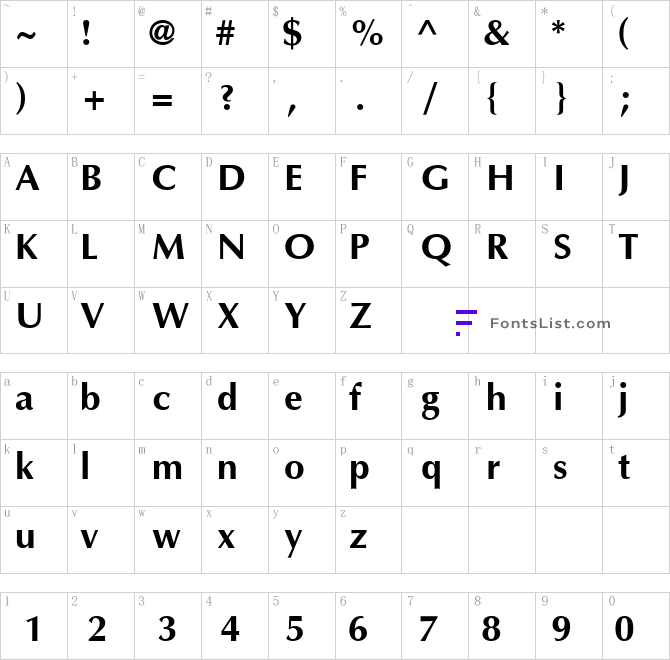
- Font Name:AGOptimaCyr-Bold
- Subfamily:FontMonger:AGOptimaCyr Bold Bold
- Full Name:AGOptimaCyr Bold Bold
- Copyright:© 1992, Tilde Ltd. AG Fonts Collection. Created by Andrejs Grinbergs.
AGOptimaCyr-Bold-Bold.ttf is a very beautiful artistic font, AGOptimaCyr-Bold-Bold.ttf is widely used in the design and printing of various books and pictures,AGOptimaCyr-Bold-Bold.ttf has a strong visual impact,AGOptimaCyr-Bold-Bold.ttf is a commonly used font in newspapers, magazines and books, and is used in posters, e-commerce Poster design, store design, logo design, font design and other fields.AGOptimaCyr-Bold-Bold.